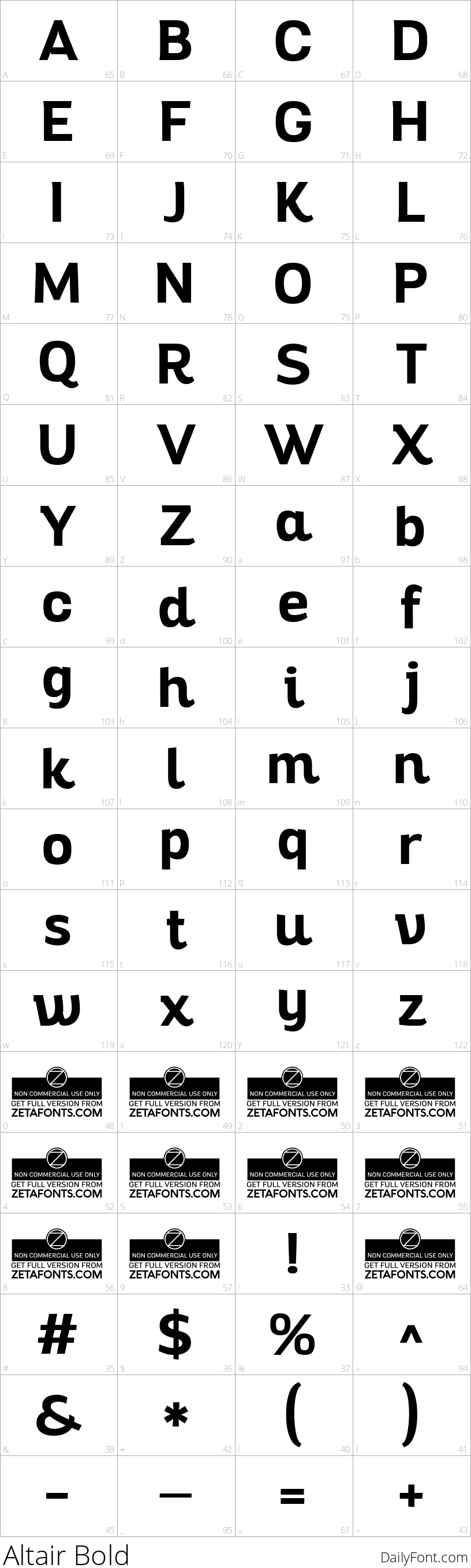
Altair
Modern sans-serif family in seven weights with calligraphic flair
Discover Altair, a versatile sans serif font family with a unique blend of modernity and calligraphic flair. This seven-weight range is perfect for designers seeking a reliable choice for body copy, display text, or anywhere a friendly, confident tone is required.
Characterized by its bold yet elegant design, Altair excels in conveying a sense of sophistication and approachability. Its digital roots are evident in its clean lines and geometric shapes, making it an ideal match for corporate brands, innovative startups, news publications, and more. Whether used for headlines, paragraphs, or titles, Altair's expressive curves and subtle flair will bring warmth and personality to your designs.
Whether you're looking for a font to establish a strong brand identity, add visual interest to your content, or simply inject some character into your typography, Altair is an excellent choice. Its versatility, combined with its distinctive calligraphic touches, makes it an excellent solution for designers seeking a font that can adapt to various design contexts and applications.